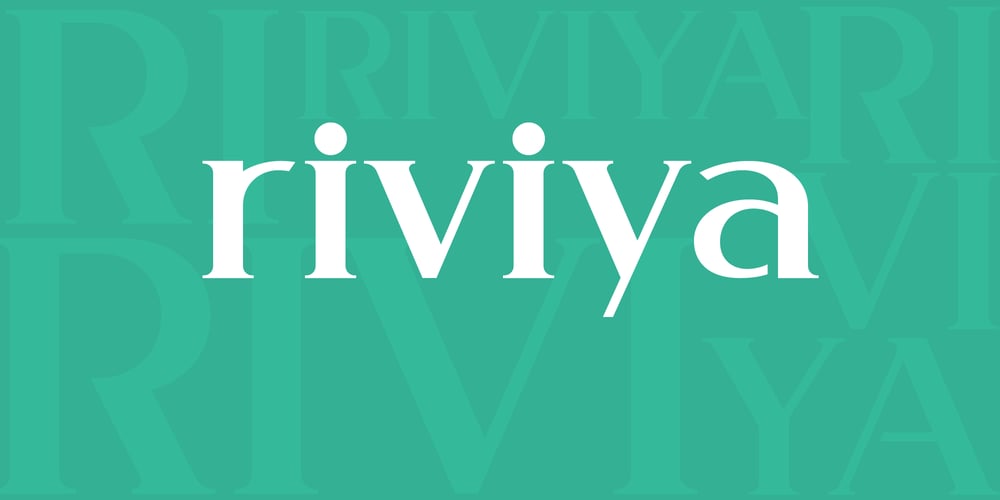
Riviya
Riviya font
Riviya Font Family was designed by Volodymyr Berla and published by VladB. Riviya contains 8 styles and family package options. Riviya is a modern elegant font with serif, includes upper and lower case characters, Latin, Cyrillic, Latin Eastern Europe, Turkish, Baltic and other, 500+ symbols.Riviya family consists of 8 fonts, divided into 2 subgroups (according to the type of style – St, Op), and have the 4 types of thickness in each subgroup.Riviya fonts will be useful in developing a brand, creating posters and other graphic products, and for word processing.